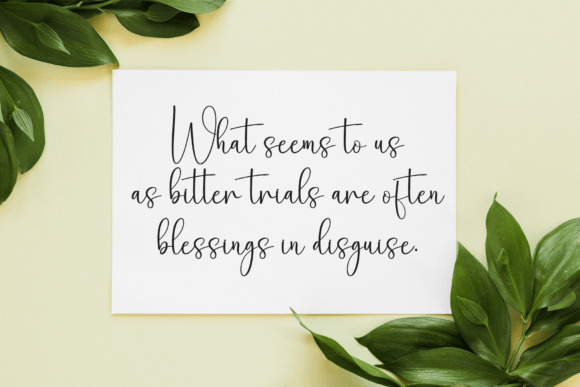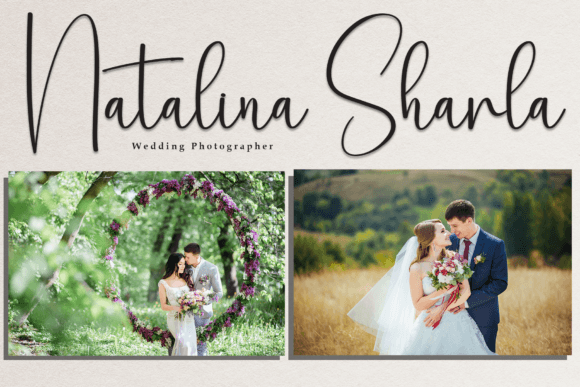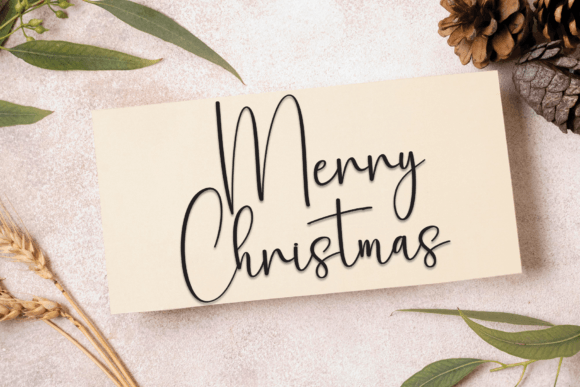
Signature Handwriting Font
Signature Handwriting is a flowing handwritten font, described by an elegant touch, perfect for your favorite projects. Fall in love with its incredibly distinct and timeless style and use it to create spectacular designs!